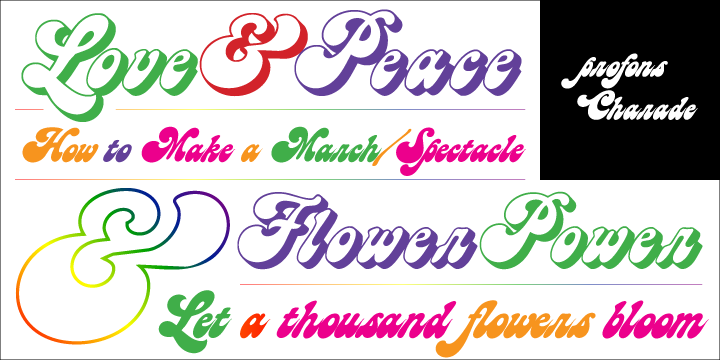
Charade Font is ideal for mystery dinner theater promotions, theatrical performance materials, masquerade party invitations, vintage game night branding, classic film festival posters, entertainment venue signage, dramatic arts academy materials, costume party designs, vintage parlor game packaging, theatrical production programs, classic entertainment memorabilia, and sophisticated game show graphics. This intriguing typeface brings theatrical mystery to projects requiring dramatic flair and vintage entertainment appeal.
What makes Charade Font so exciting is its captivating ability to embody the sophisticated mystery and theatrical elegance of classic entertainment through dramatically styled letterforms that seem to whisper secrets and hidden meanings. The font features artfully crafted characters with theatrical flourishes and enigmatic proportions that mirror the playful intrigue and sophisticated wordplay of classic parlor games and dramatic performances. Its mysterious character conveys intelligence and entertainment while maintaining excellent readability, making it perfect for brands seeking to communicate sophistication, mystery, and the timeless appeal of clever entertainment with authentic theatrical charm.
The Charade Font family includes multiple dramatic weights and theatrical variations that showcase its mysterious character while providing comprehensive design flexibility for various entertainment and dramatic applications. Each variant maintains the original's intriguing personality while offering extensive options for creating sophisticated typographic compositions that celebrate wit, mystery, and theatrical tradition.
Whether you're developing entertainment brand identities, creating theatrical marketing materials, or designing sophisticated game communications, Charade Font Free Download offers the perfect combination of mysterious elegance and contemporary functionality. This exceptional typeface brings authentic theatrical sophistication to design projects, making it an indispensable choice for designers seeking typography that effectively communicates mystery, intelligence, and the captivating allure of classic entertainment with genuine dramatic appeal.